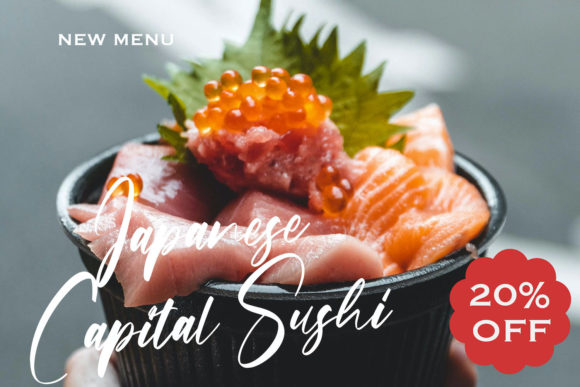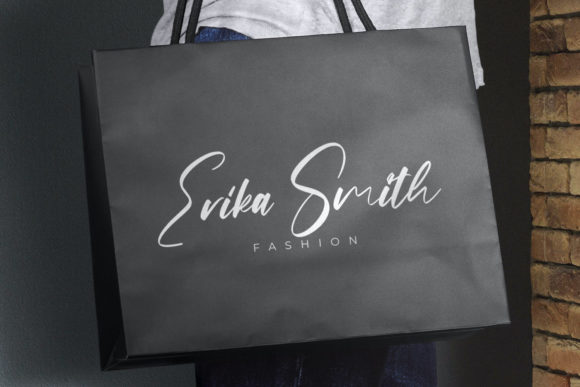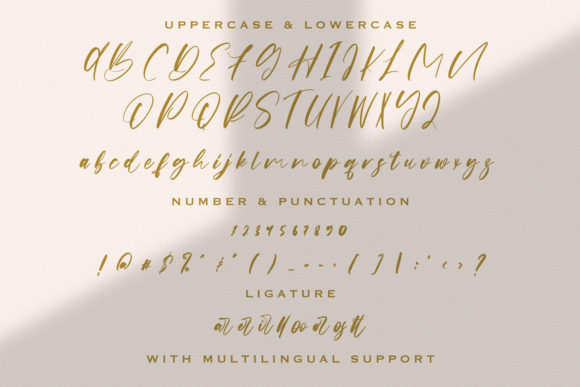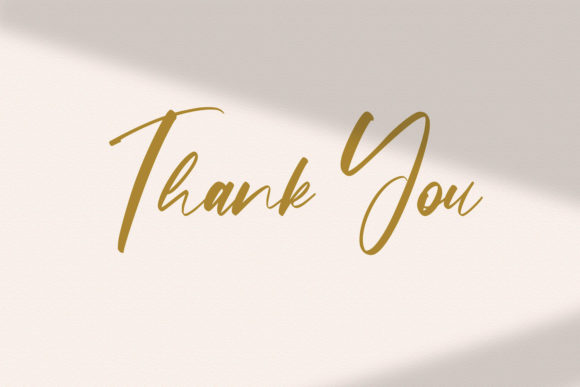
About Origa Script Font
Origa Script is a stunning cursive script font that effortlessly combines a relaxed and stylish aesthetic. With its flowing and curvaceous letterforms, this font exudes a sense of elegance and sophistication. Whether you’re working on branding, invitations, packaging, or any other creative project, Origa Script will add a touch of luxury and charm.
The versatility of Origa Script font allows it to shine in various design contexts. Its timeless style makes it suitable for both modern and classic projects, while its fluid strokes and graceful curves bring a sense of movement and energy to the text. This font has the power to transform any design into something truly spectacular.
Origa Script font’s luxurious spark comes from its attention to detail and carefully crafted design. Each character has been meticulously created to ensure a harmonious and visually pleasing result. The flowing connections between letters and the graceful curves of each stroke make Origa Script a truly captivating typeface.
Fall in love with Origa Script’s incredibly versatile style, as it allows you to create stunning designs with ease. Whether used as a headline, logo, or decorative element, this font will make a strong visual impact. Its stylish and cursive nature adds a touch of elegance and sophistication to your projects, instantly elevating their overall aesthetic.
With Origa Script, you can create designs that stand out and leave a lasting impression on your audience. Its relaxed and stylish vibe adds a sense of authenticity and uniqueness to your work. Embrace the versatility of Origa Script font and let it inspire you to create spectacular designs that capture attention and evoke emotion.
In summary, Origa Script is a relaxed, stylish, and cursive script font that adds a luxury spark to your design projects. Its versatile style allows for a wide range of creative possibilities, and its attention to detail ensures a visually pleasing result. Fall in love with Origa Script and let its elegance and charm elevate your designs to new heights.